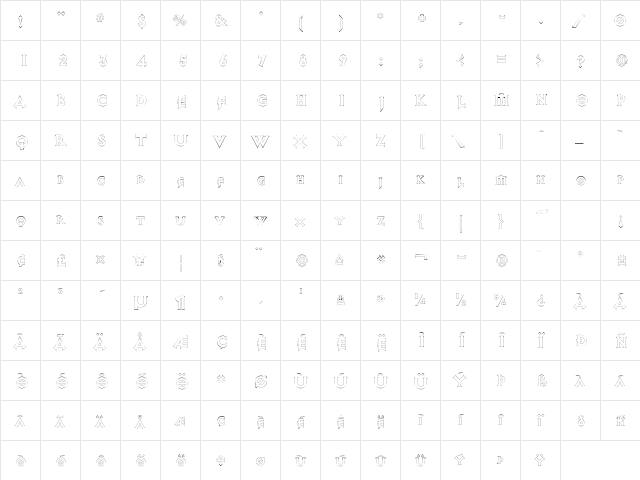
AvalonQuestOutline Black Font Preview
AvalonQuestOutline Black
Design Context for AvalonQuestOutline Typeface
AvalonQuestOutline brings ornamental detail and strong personality to headlines and identities, where visual impact matters more than quiet functionality.
Font Pairing: Pair with a clean neutral sans-serif for body copy to let AvalonQuestOutline's character lead without overwhelming the composition.
Pro Tip: Treat AvalonQuestOutline as the centrepiece of your typographic hierarchy. One strong heading set in a decorative face can carry an entire layout.